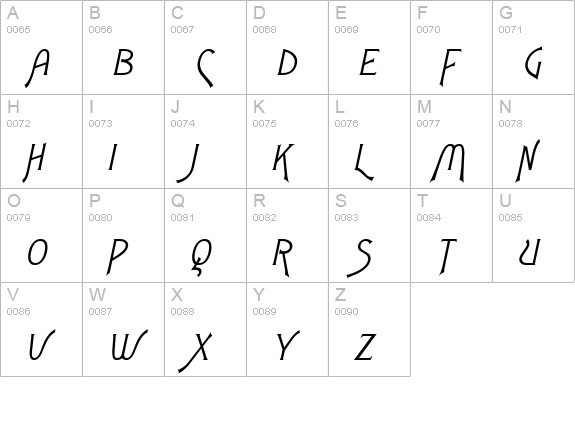
Fletch Extended Italic is a distinctive, extended-width, italic variant in the Fletch typeface family \xE2\x80\x94 well suited to design and typography projects.
Fletch Extended Italic font is a stylish and modern typeface that exudes elegance and sophistication. Its sleek and elongated design is perfect for adding a touch of class to any project. With its slanted italic style, Fletch Extended Italic font brings a sense of dynamism and movement to your text. What makes Fletch Extended Italic font even more appealing is that it is available for free download at FontsMarket.com. This means you can easily access and use this high-quality font in your design projects without any cost. Whether you're working on branding materials, advertising campaigns, or any other creative project, Fletch Extended Italic font is a versatile choice that will elevate your design to the next level. Download it for free today and see the difference it makes in your work!